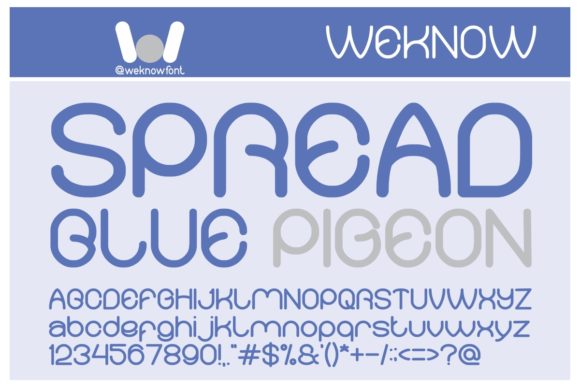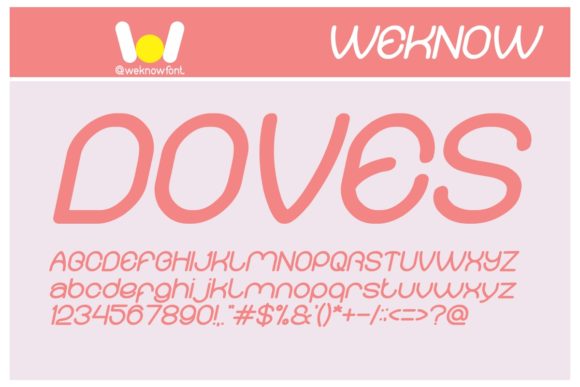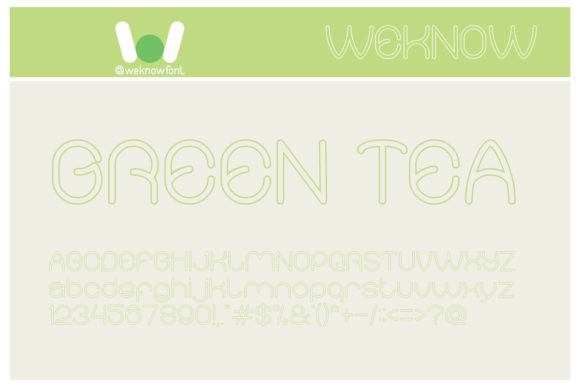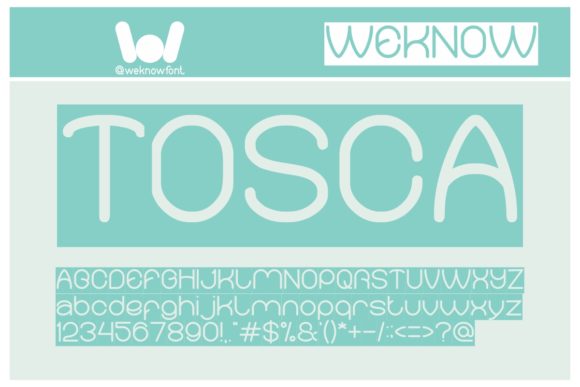
Introduction to Merpati Putih Font
Merpati Putih is an incredibly unique and adaptable display font.
It can be used for various designs, particularly those informal or casual Add it confidently to your projects, and you wonโt be disappointed.
Key Features of Merpati Putih Font
Why Choose Merpati Putih Font?
Merpati Putih Font offers exceptional quality and versatility, making it a valuable addition to your design toolkit. Whether you’re creating for personal projects or commercial use, Merpati Putih Font delivers professional results.